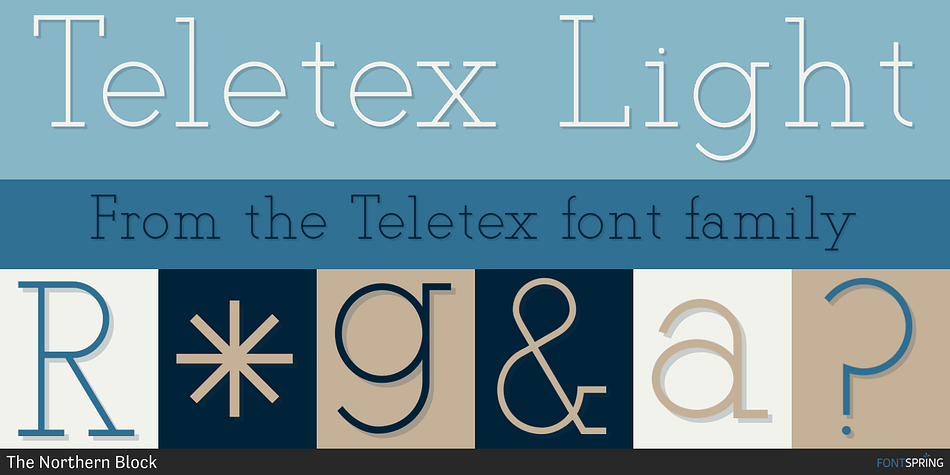
Teletex is a slab serif font family. This typeface has four styles and was published by The Northern Block.
Teletex Light
A typewriter style slab serif typeface. The design is influenced by the font Rockwell and uses a combination of precise geometry with subtle elliptical curves. The harmony of these elements creates a distinctive and functional typeface suitable for a variety of graphic design applications. Details include 4 weights, a complete character set, manually edited kerning and Euro symbol.